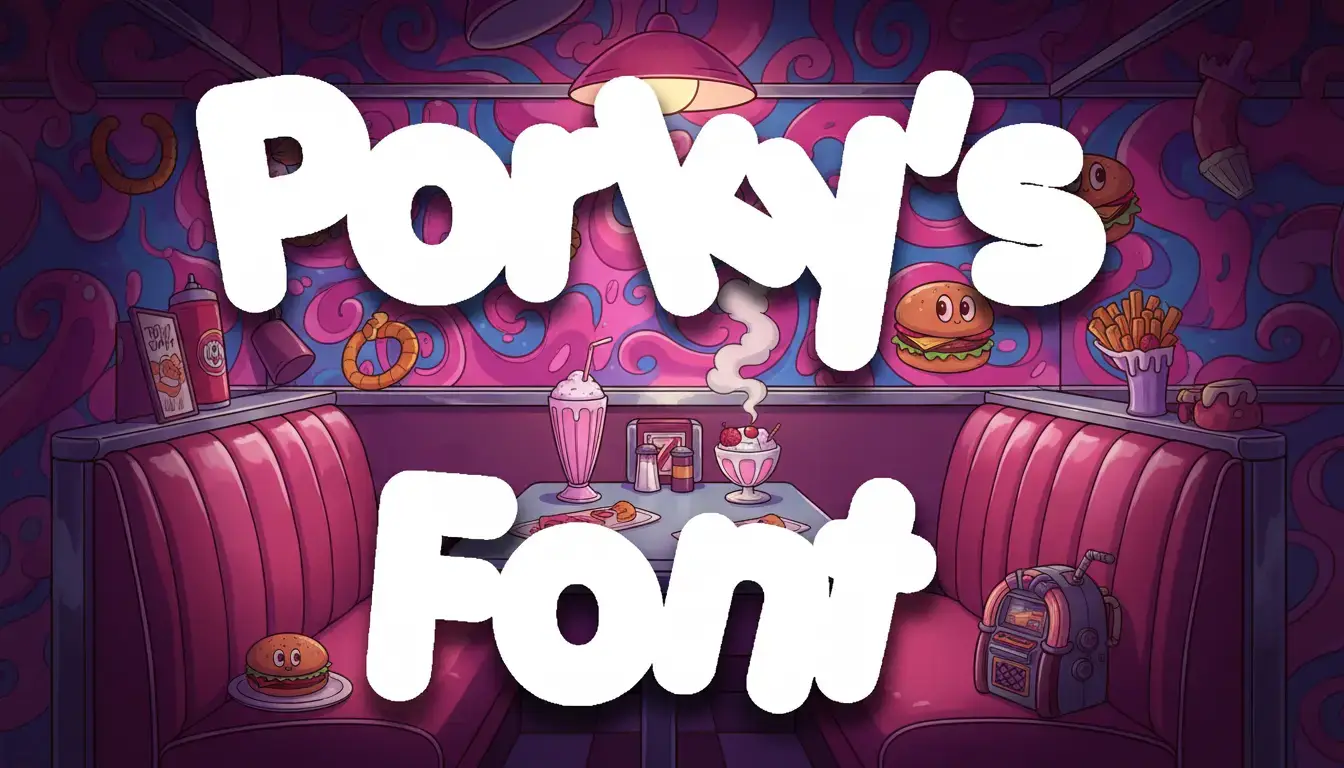
Porky’s Font
Porky’s is a fancy font. Bold and full of character, it's built to stand out rather than blend in. You get two styles in one free ZIP, and the preview above lets you test each one before you download.
What You Can Type With Porky’s
Porky’s covers the full alphabet in upper and lowercase, plus all ten numbers, so you can set names, dates and prices without switching fonts. Everyday marks like &, !, ? and @ are there too. Thanks to its accented letters, it also works for Spanish, French, German, Portuguese and Italian, not just English.
Where Porky’s Works Best
Porky’s is a natural fit for posters, logos and eye-catching headlines. Use it for one standout word or headline and let simpler fonts handle the rest. Because the family has more than one style, you can mix them in a single design for headings, subheadings and highlights.
Does Porky’s support accented letters?
Yes. Porky’s includes the accented letters needed for Spanish, French, German, Portuguese and Italian, so it works for more than just English.